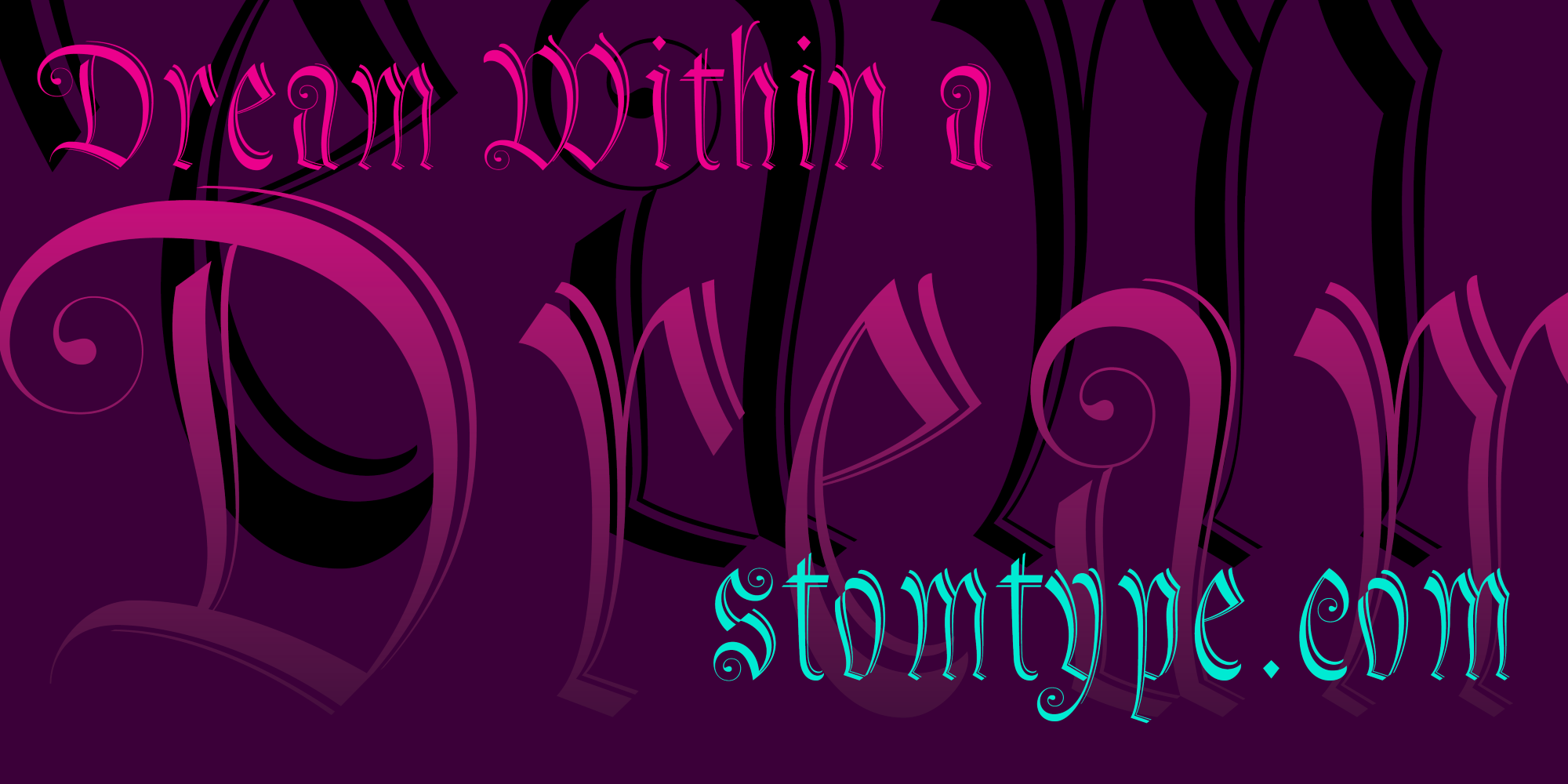
The Dream Within A Dream Font is an enchanting choice for projects that aim to evoke a whimsical, artistic, and ethereal atmosphere. It’s perfectly suited for poetry collections, fantasy book covers, art gallery exhibits, meditation app interfaces, spiritual wellness branding, dream catcher designs, and any creative project that benefits from a soft, flowing, and imaginative typeface. Its delicate and often irregular character makes it ideal for conveying a sense of mystery, wonder, and profound beauty.
What makes Dream Within A Dream Font so exciting is its ability to transcend the ordinary and tap into a realm of poetic beauty. The letterforms often feature subtle undulations, soft curves, and a delicate, almost whispered quality, giving your text an immediate sense of fragility and grace. This font isn't just about reading words; it's about experiencing them as if they're emerging from a dream – fluid, personal, and imbued with emotion. It excels at creating an atmosphere of introspection and artistic expression, making your messages feel intimate and deeply resonant. Its unique design often suggests a gentle, hand-drawn touch, adding to its ethereal charm.
The Dream Within A Dream Font family typically focuses on variations that enhance its delicate and artistic nature. You’ll generally find a strong regular style that embodies its core dreamy aesthetic. Given its unique design, some versions might offer subtle alternative characters, ligatures, or even stylistic sets to provide more organic variations and fluidity, further enhancing its bespoke, artistic feel. The emphasis is on maintaining its distinctive, soft, and uniquely crafted charm across all applications, making each word appear as a piece of an unfolding narrative.
Whether you're illustrating a magical tale, designing a contemplative art piece, or crafting engaging content that speaks to the deeper senses, the Dream Within A Dream Font Free Download offers an indispensable tool. Its imaginative appeal and undeniable charm make it a standout choice for any project that aims to be ethereal, memorable, and profoundly artistic.